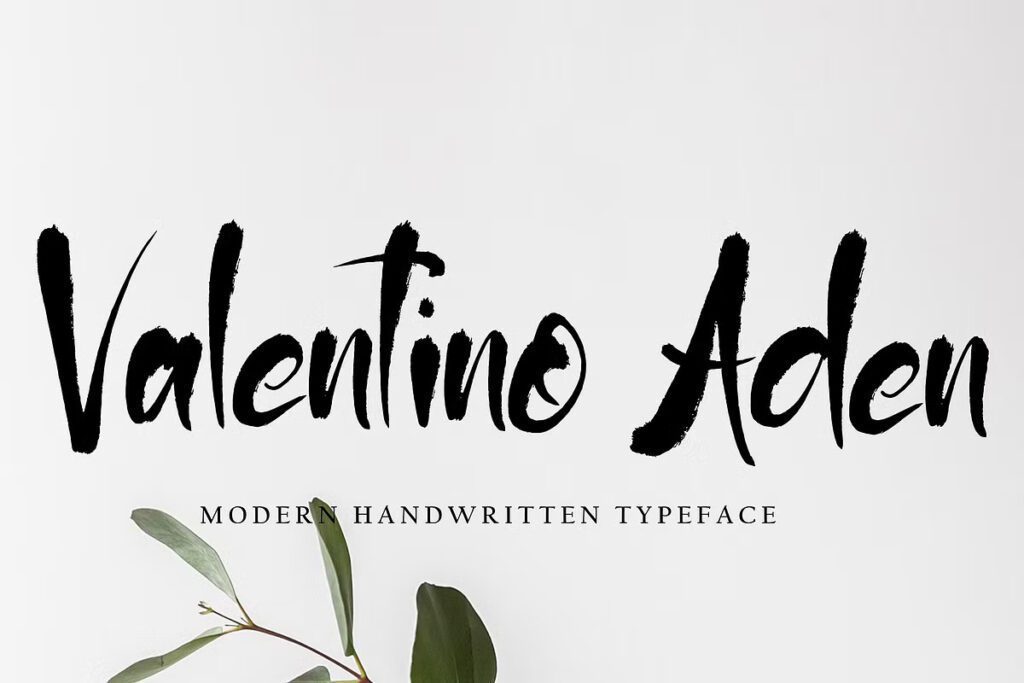
Valentino Aden Font Free Download
How HaKi Studio describes Valentino Aden
We have not examined the font files, so everything here about the design comes from the designer. Creative Market files Valentino Aden under its Handwritten fonts category, and the listing calls it a font with a “new style.”
The earlier listing copy we quoted on this page describes Valentino Aden as an “elegant font for all occasions,” designed to bring “elegance and sophistication” and to create “refined, timeless visuals.” It also notes that the font works on both PC and Mac.
In short, the designer pitches it as a dressy handwritten display face, not a text font. Look at the preview images on the listing before you buy to judge the letter shapes for yourself.
Where the designer suggests using it
The listing names a long set of jobs: quotes, logos, blog headers, posters, banners, letters, invitations and stationery. Most of these share one thing. They use a few words set large.
That is the safest way to treat any handwritten display font. Use Valentino Aden for a name, a headline or a short quote, and set everything else in a plain typeface. Some pairings that tend to work with an elegant handwritten face:
- Montserrat for a clean, modern sans serif under a script headline on posters and social graphics.
- Lato for event details on invitations and stationery, where small text has to stay readable.
- Cormorant Garamond if you want a classic serif to match the “timeless” tone the designer describes.
For a logo, test the name at small sizes before you commit. Fine handwritten strokes can fill in on business cards and app icons.